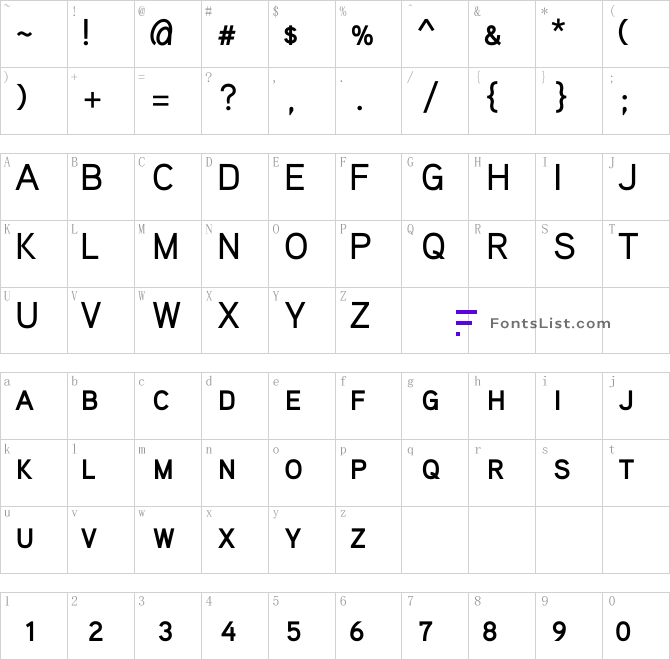
- Font Name:Aaux ProMedium SC
- Full Name:Aaux ProMedium SC
- Copyright:2004 T.26 Digital Type Foundry www.t26.com PSID#5134673 designer: Neil Summerour / Positype
Aaux-ProMedium-SC.ttf is a very beautiful artistic font, Aaux-ProMedium-SC.ttf is widely used in the design and printing of various books and pictures,Aaux-ProMedium-SC.ttf has a strong visual impact,Aaux-ProMedium-SC.ttf is a commonly used font in newspapers, magazines and books, and is used in posters, e-commerce Poster design, store design, logo design, font design and other fields.Aaux-ProMedium-SC.